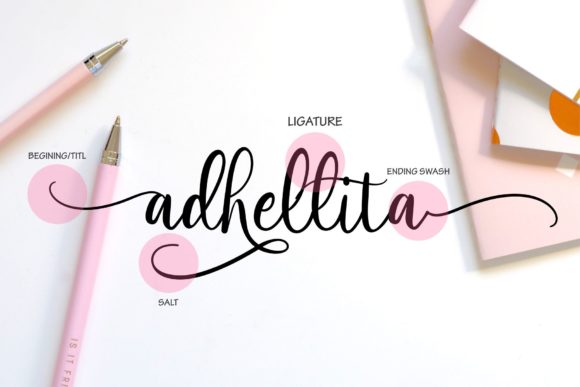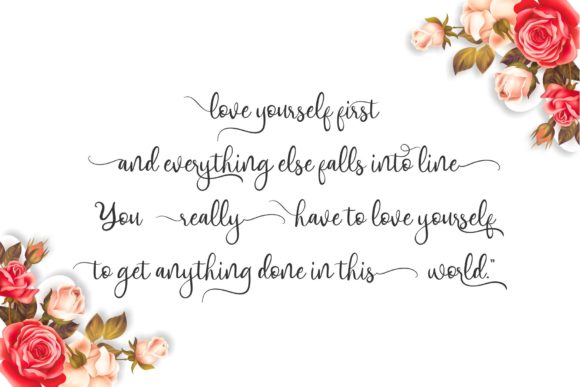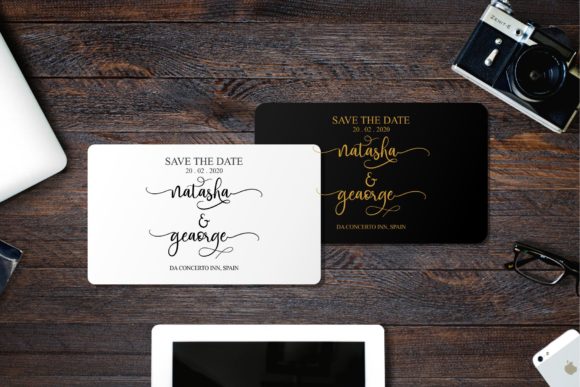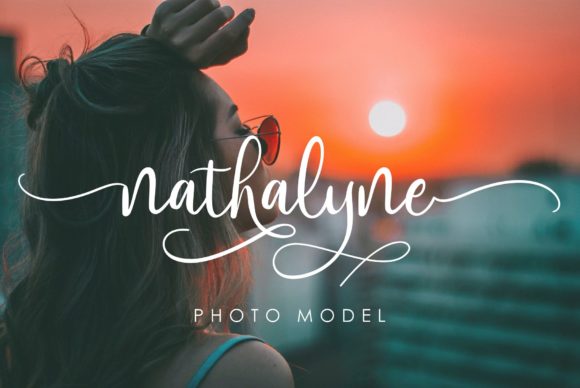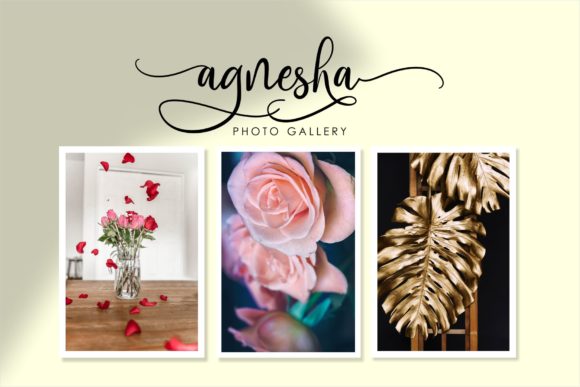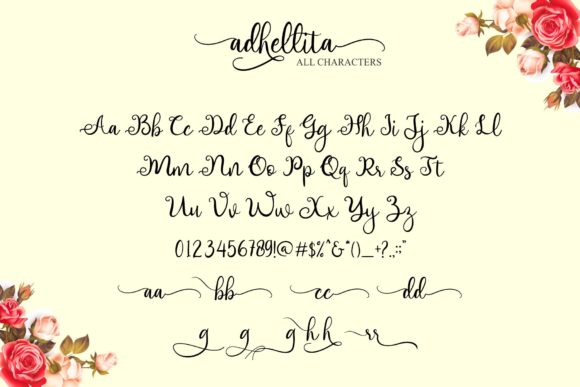
The Magic of Adhellita Font: Elevate Your Designs with Elegance
I’ll never forget the time I was working on a wedding invitation design for a client who wanted something elegant and sophisticated. I had spent hours browsing through font libraries, but nothing seemed quite right. That was when I stumbled upon Adhellita Font, and it was love at first sight! ✨ This stunning calligraphy font has since become a staple in my design toolkit, and I’m excited to share its magic with you.
An Honest Review of Adhellita Font
- ✨ Incredible swashes and alternates that add a unique touch to any design
- ✅ Elegant and sophisticated feel that’s perfect for wedding invitations, branding, and more
- 🎨 Highly versatile and can be used for a variety of design projects, from digital to print
While Adhellita Font is an amazing tool, there are a few things to keep in mind: 🤔
- ⚠️ Some users may find the font overwhelming due to its numerous swashes and alternates
- ⚠️ May require some time to get familiar with the OpenType features and glyphs
The Backstory of Adhellita Font
While I couldn’t find much information on the designer’s background, it’s clear that Adhellita Font was created with passion and attention to detail. The font’s elegant and sophisticated feel suggests a designer who was inspired by traditional calligraphy and wanted to create a modern, versatile font that would elevate designs.
| Font Name | Adhellita Font |
| Author | MJB Letters |
Q: What type of designs is Adhellita Font best suited for?
A: Adhellita Font is perfect for designs that require an elegant and sophisticated feel, such as wedding invitations, branding, and formal events.
Q: Is Adhellita Font difficult to use for beginners?
A: While Adhellita Font has a lot of features, it’s not overly complicated. With some practice and patience, beginners can get familiar with the font’s capabilities and create stunning designs.